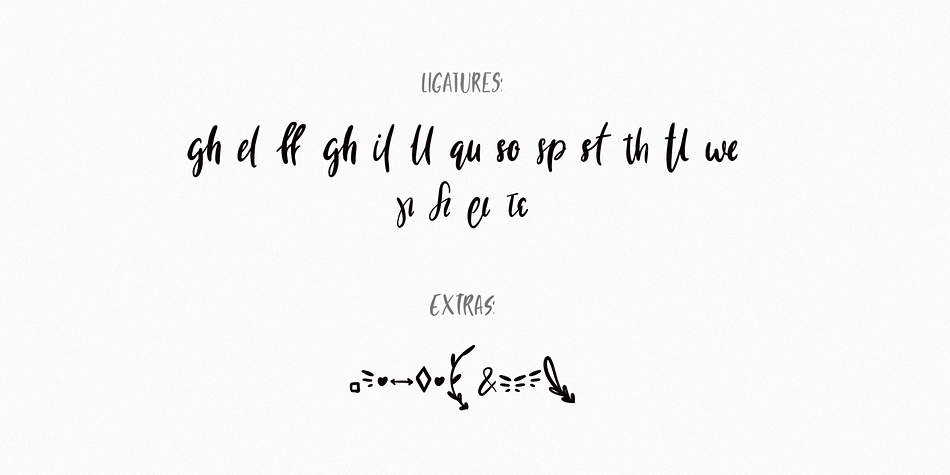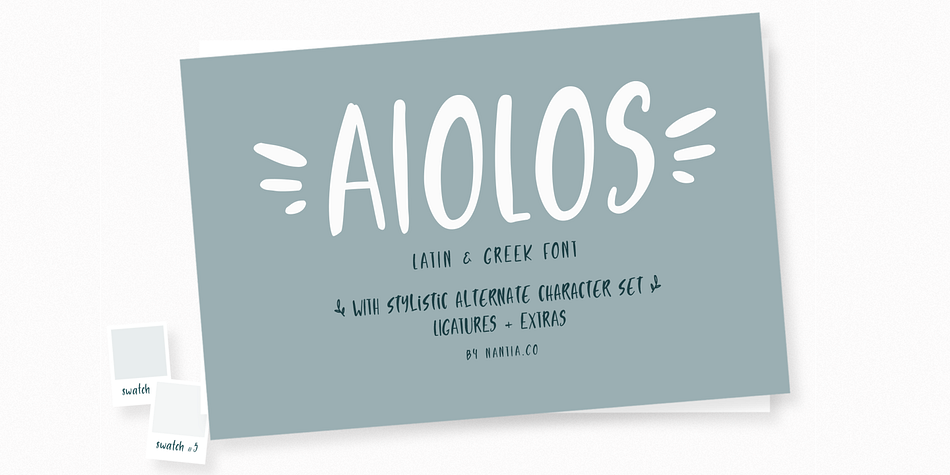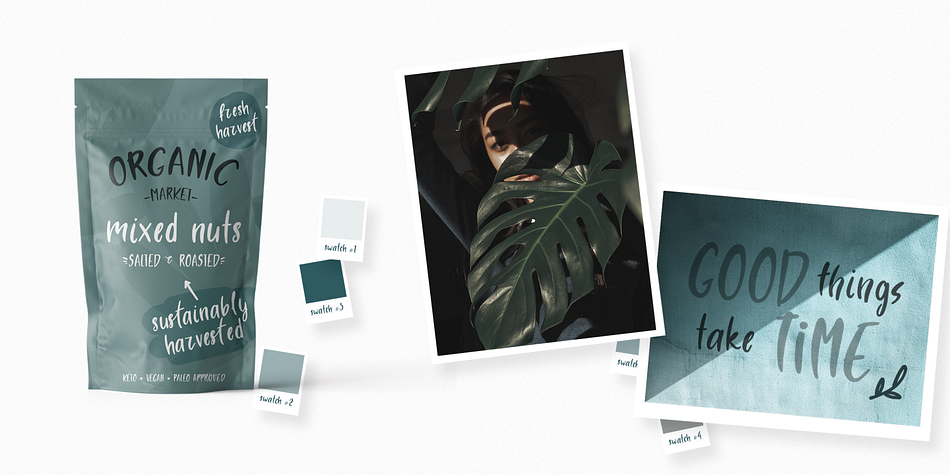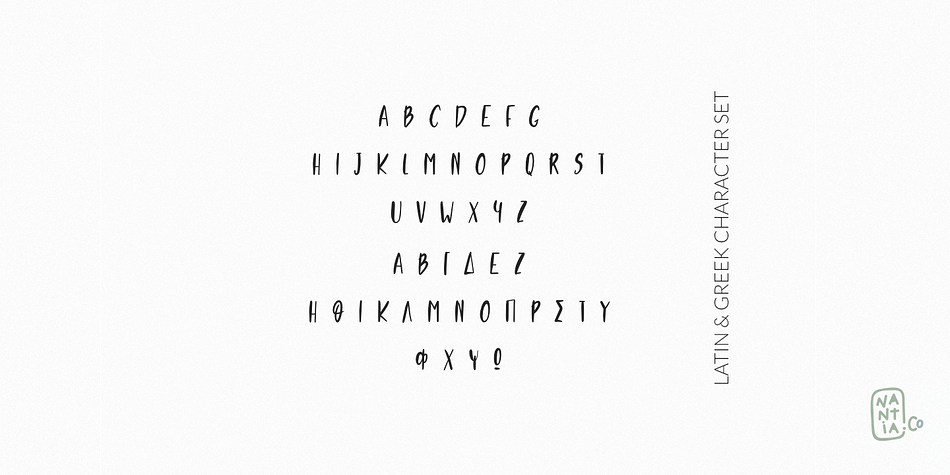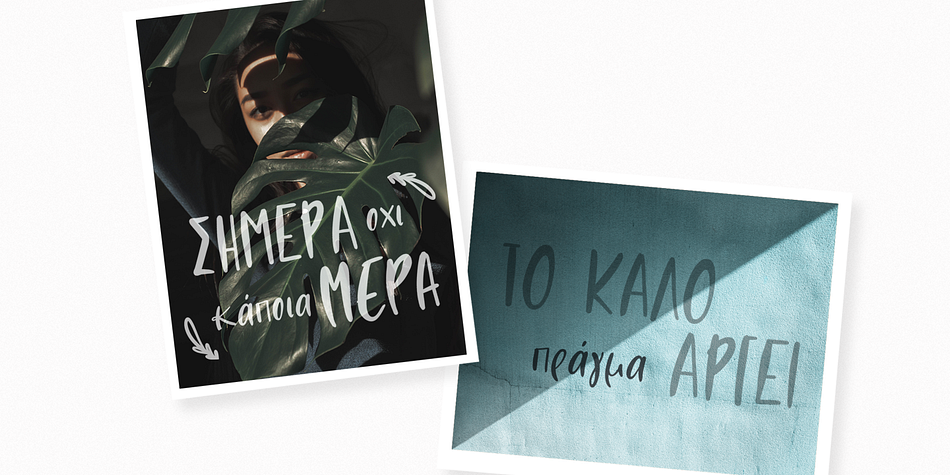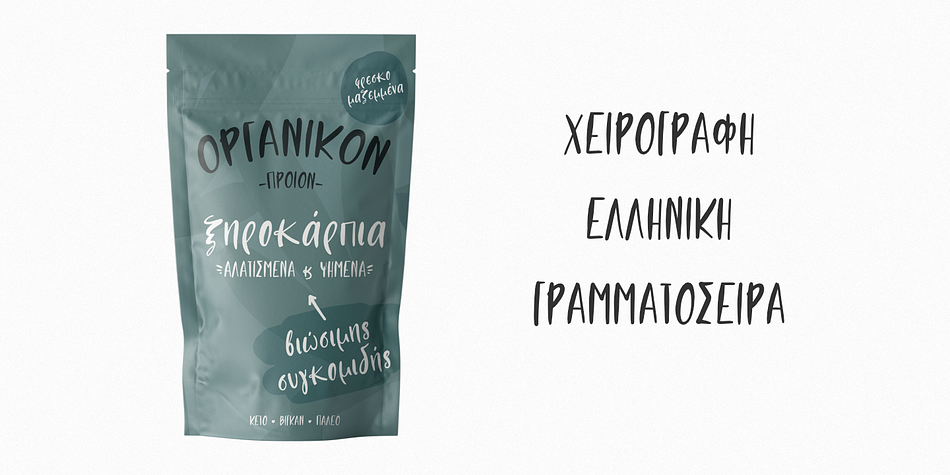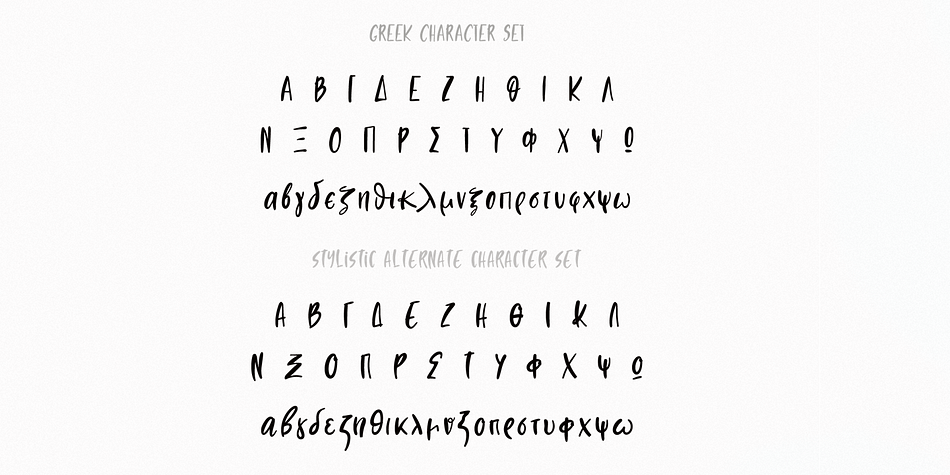
Aiolos is a hand display and dingbat font published by Konstantina Louka.
AIOLOS Greek Font with extras
This font is a hand-made typeface with Greek Character support. With cute doodles icons in PUA encoding, this typeface can be a mighty companion to your next graphic design project. From “hand-written” quotes to product packaging, merchandise, and branding projects, this font is so versatile that it can cover them all.
Extended Latin Characters
Greek Characters
Numerals
Ligatures
Stylistic Alternate Character Set
icon doodles in PUA